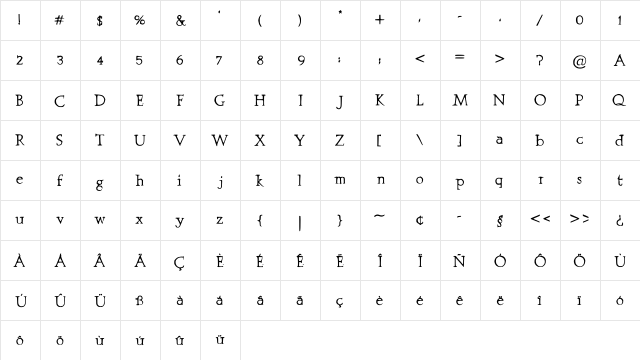
Prestinia PRO Regular
Design Context for Prestinia PRO Typeface
Prestinia PRO offers clean, dependable letterforms without strong stylistic allegiance, making it a practical choice for designers who need flexibility.
Pro Tip: Pair Prestinia PRO with a font of contrasting weight or personality to build a more expressive typographic hierarchy.